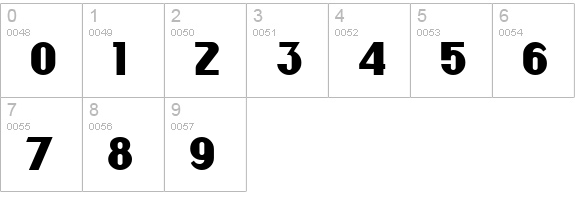
ChippewaFallsNF Font Details
ChippewaFallsNF is a beautifully crafted font that exudes a sense of elegance and sophistication. With its unique blend of classic and modern design elements, this font is perfect for adding a touch of style to any project. Whether you're creating a logo, designing a website, or working on a print project, ChippewaFallsNF is sure to make a lasting impression. What's even better is that ChippewaFallsNF is completely free to download at FontsMarket.com. This means you can easily access this stunning font and use it in your projects without any cost. Don't miss out on the opportunity to enhance your designs with the timeless charm of ChippewaFallsNF. Download it today and let your creativity shine!